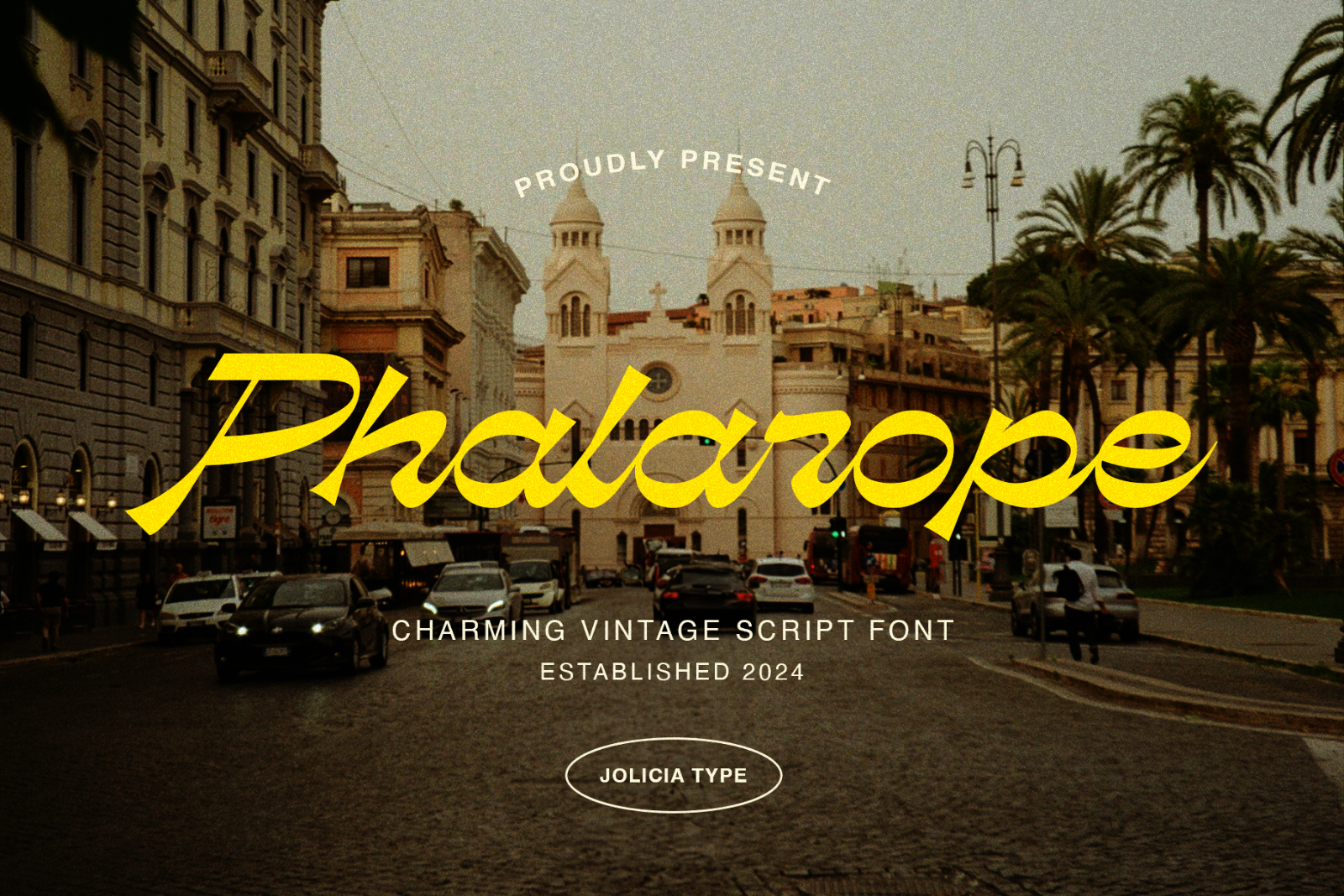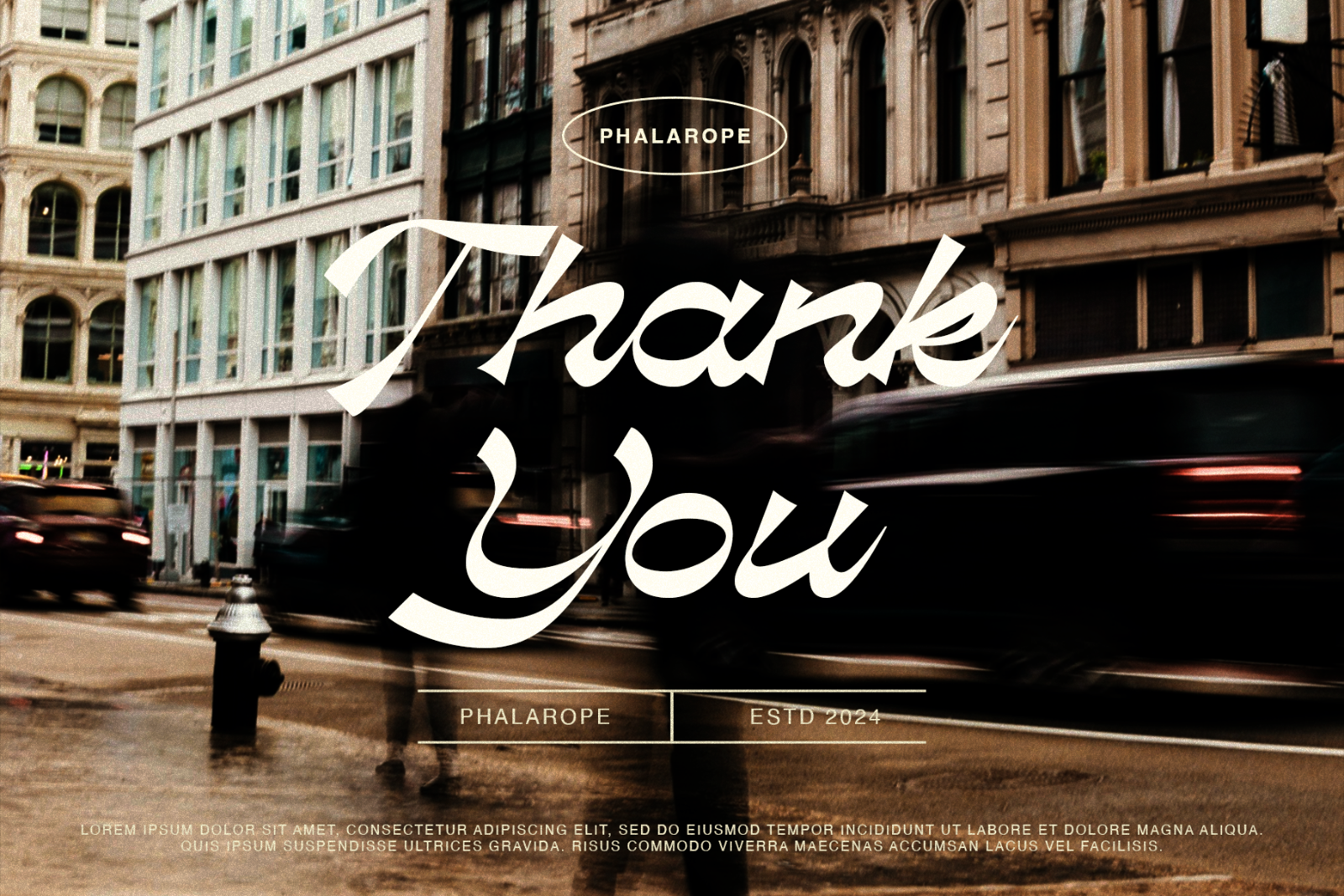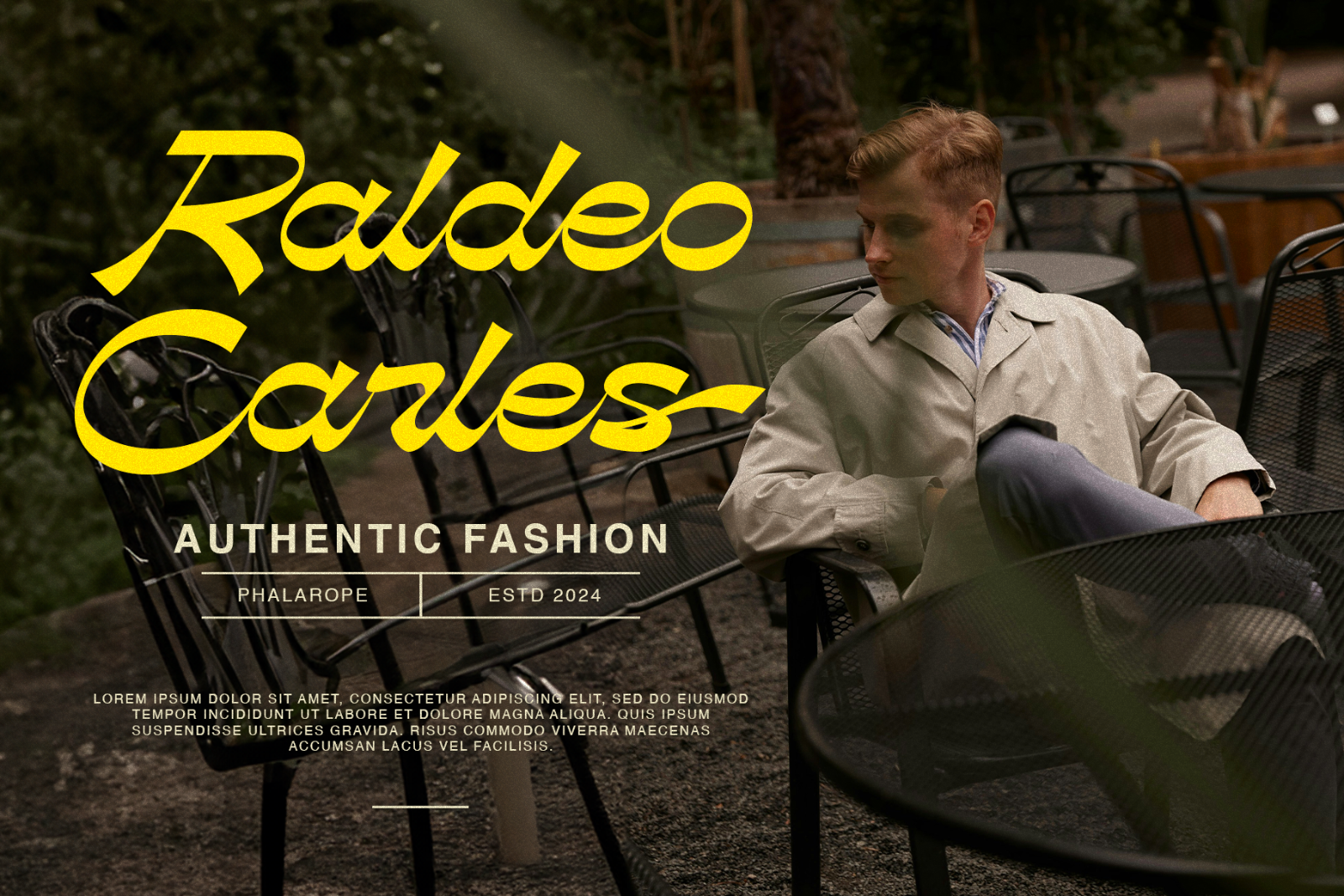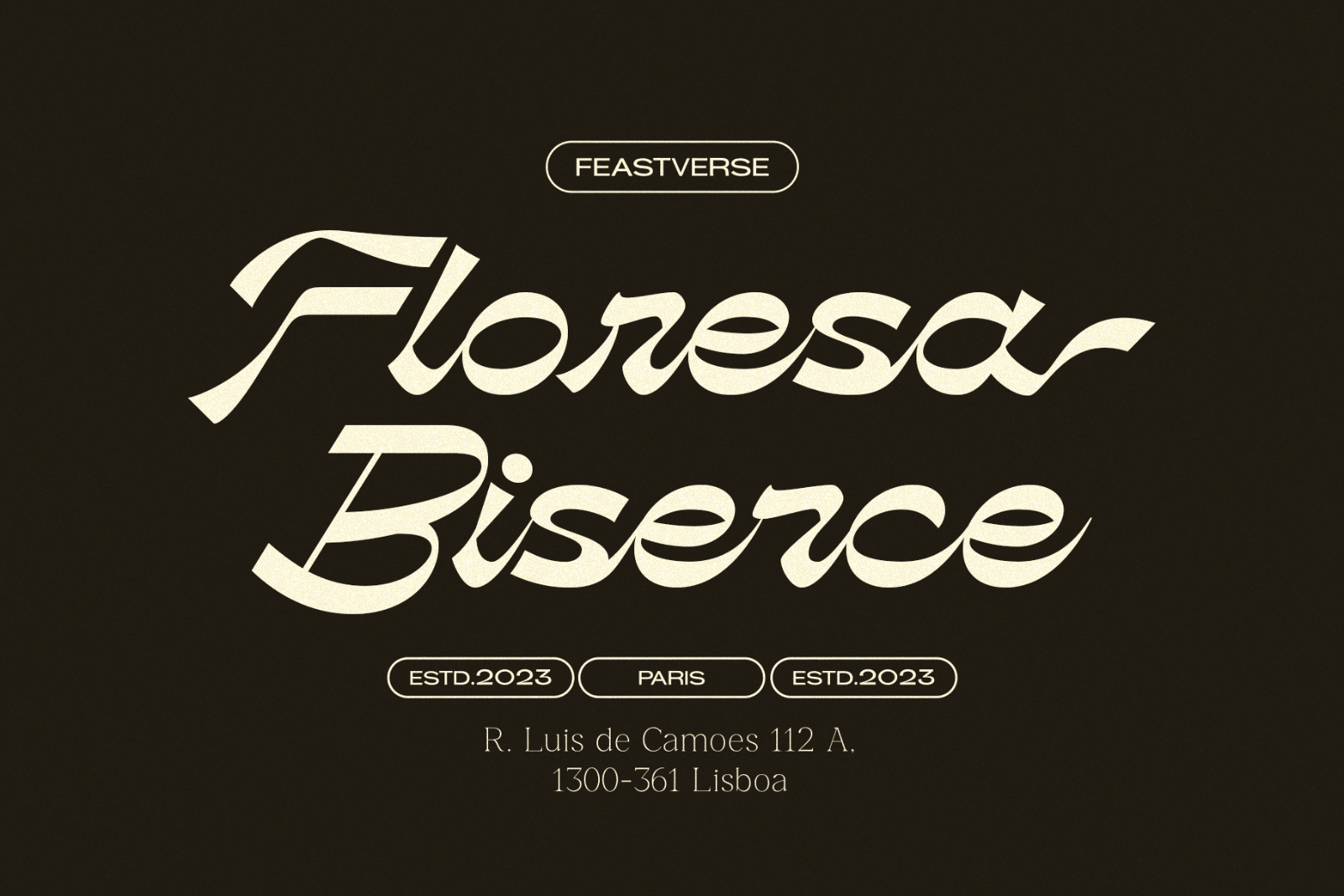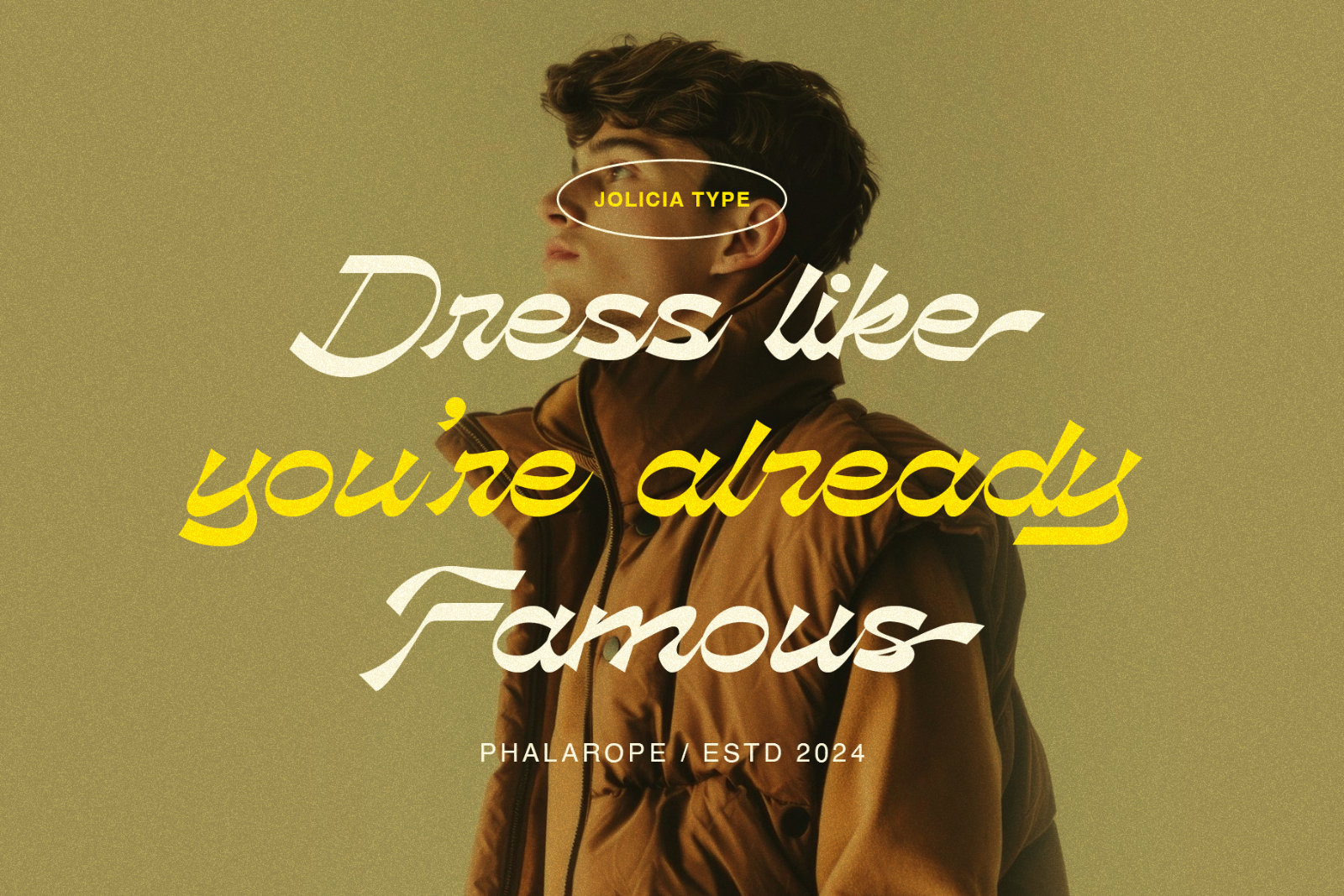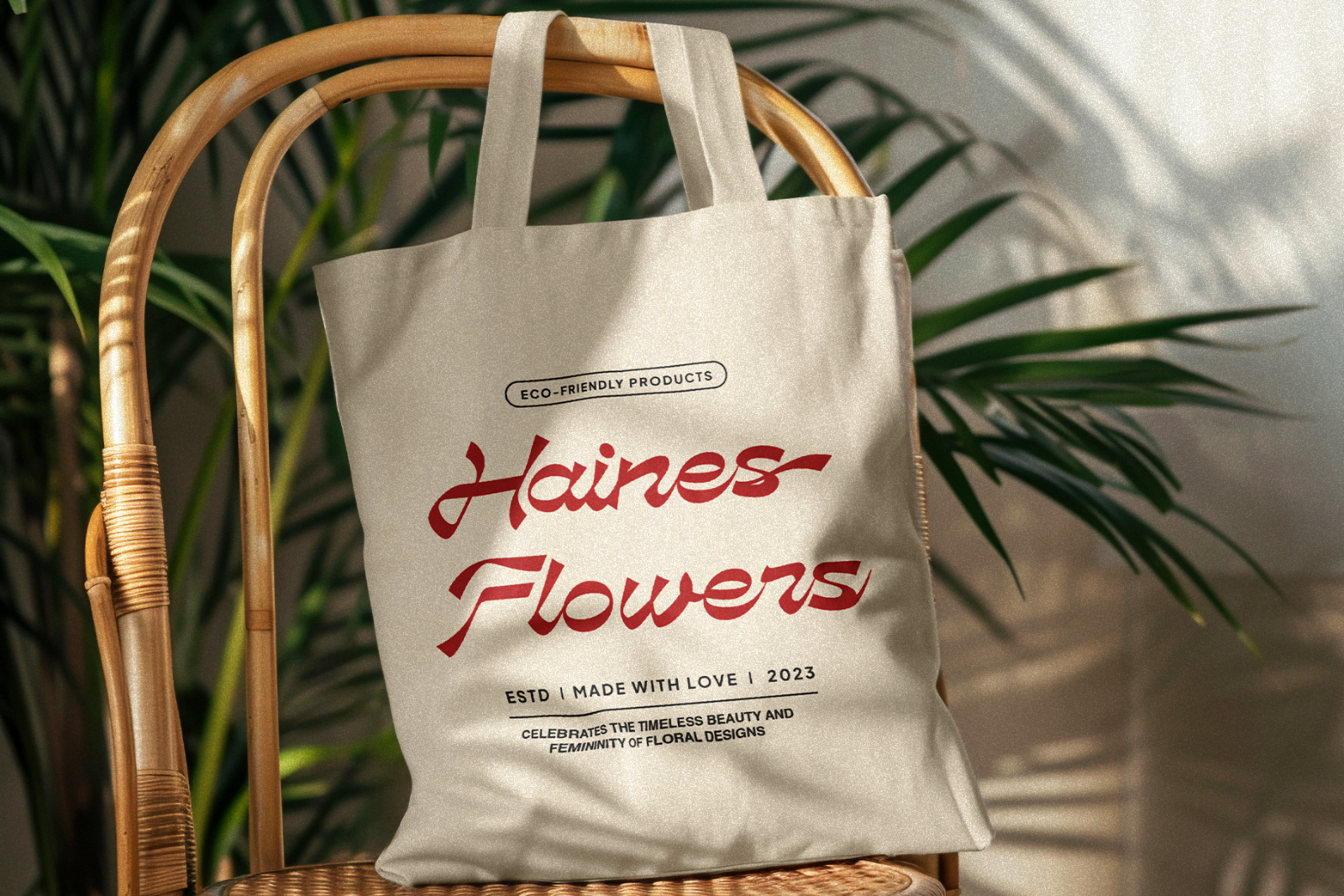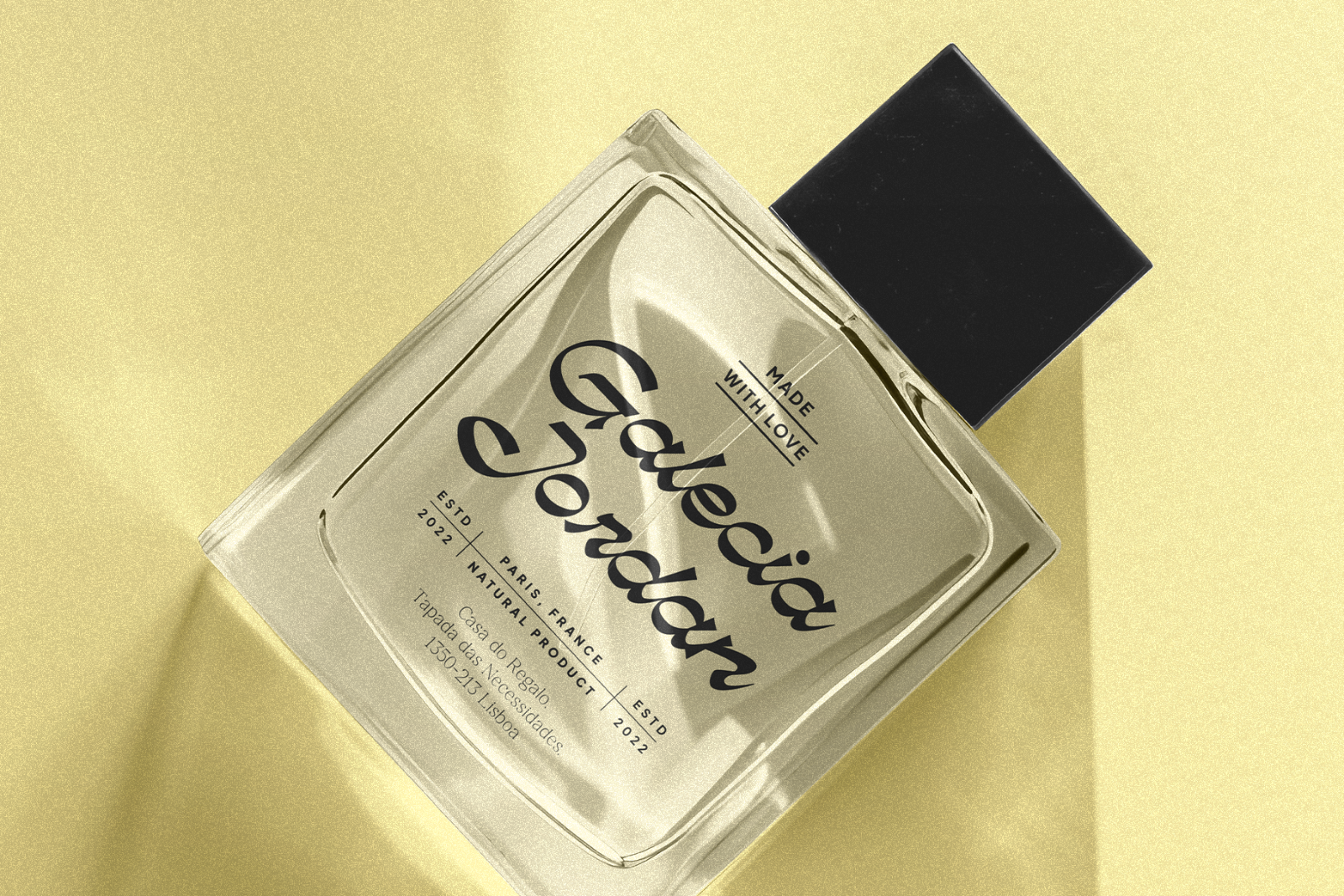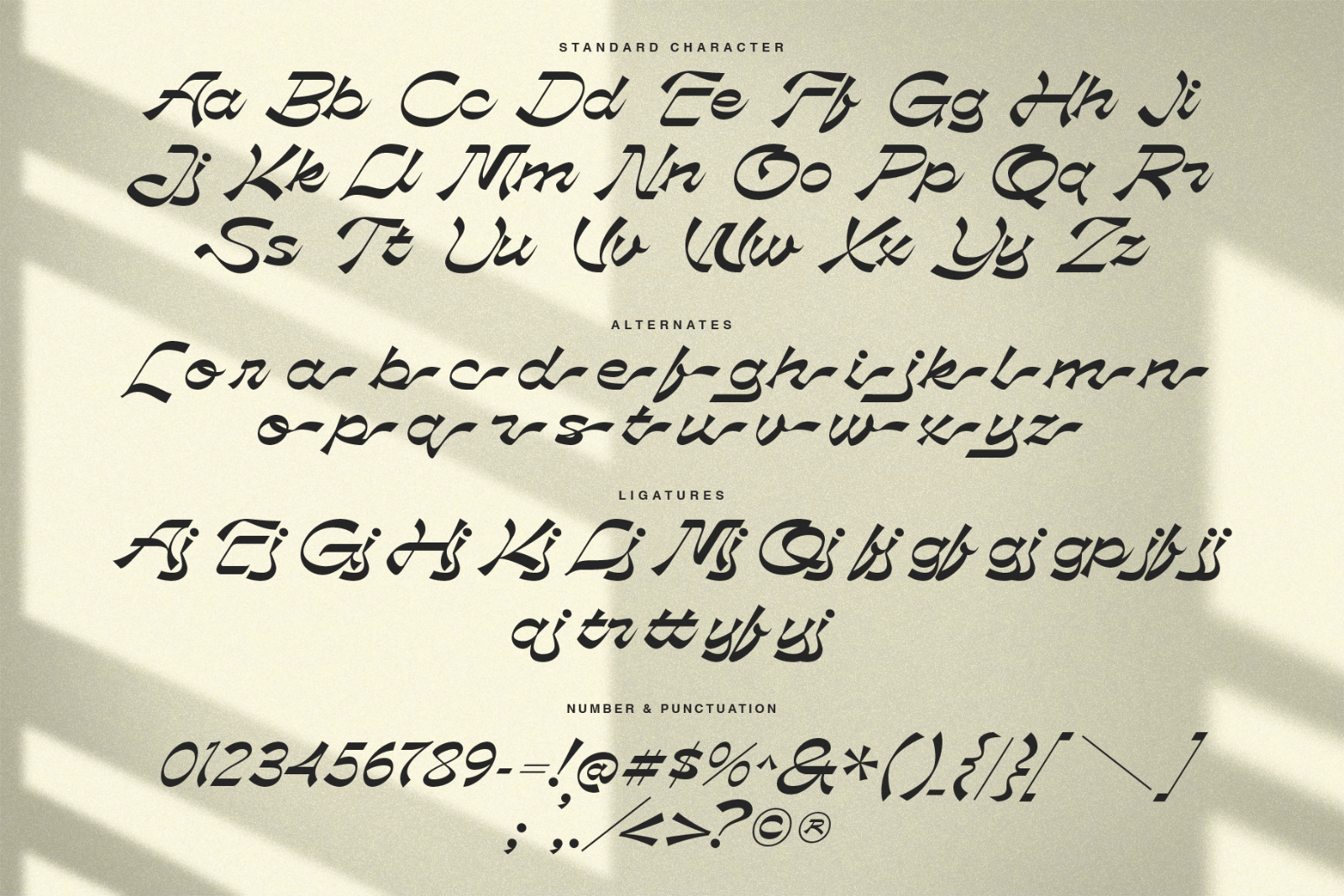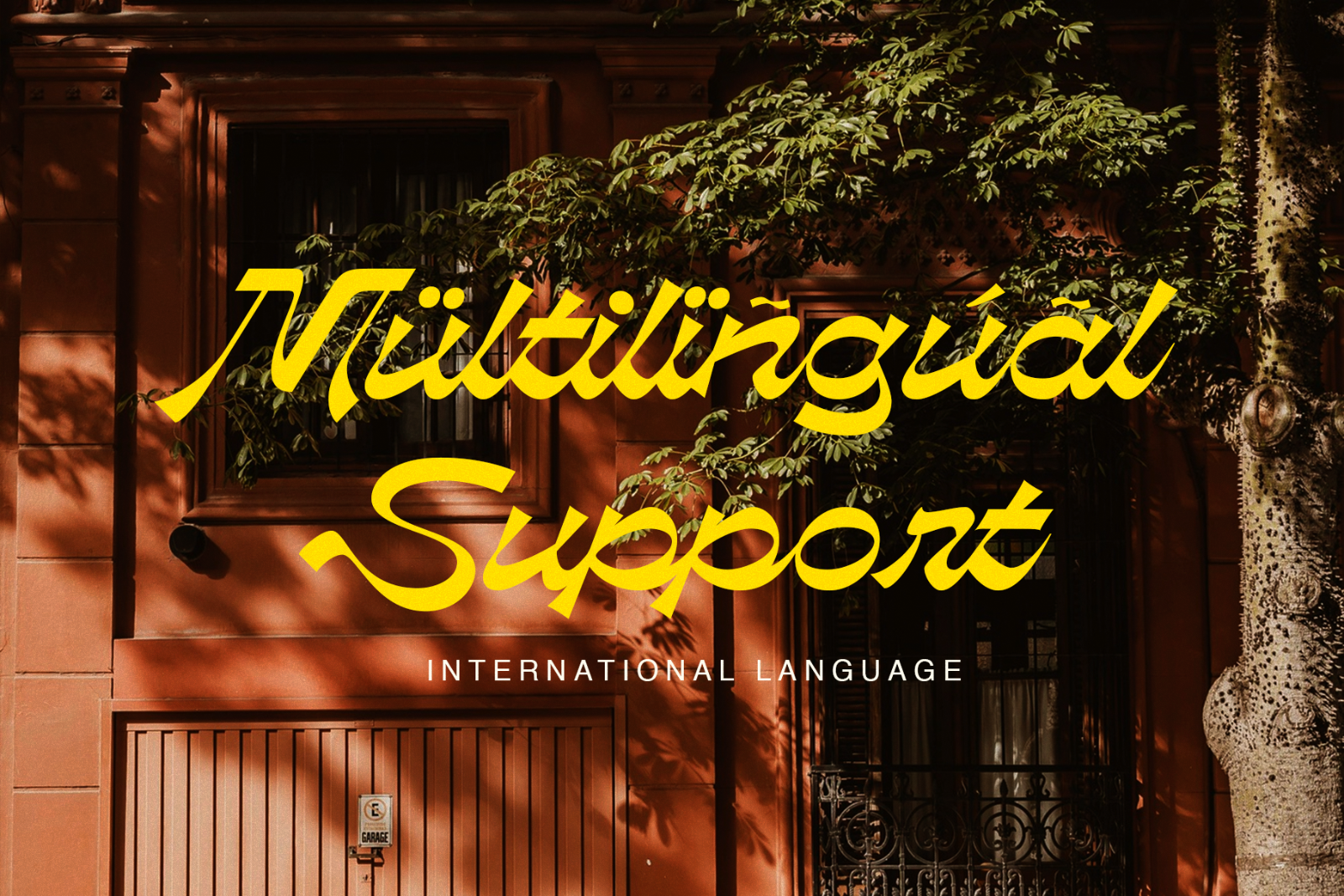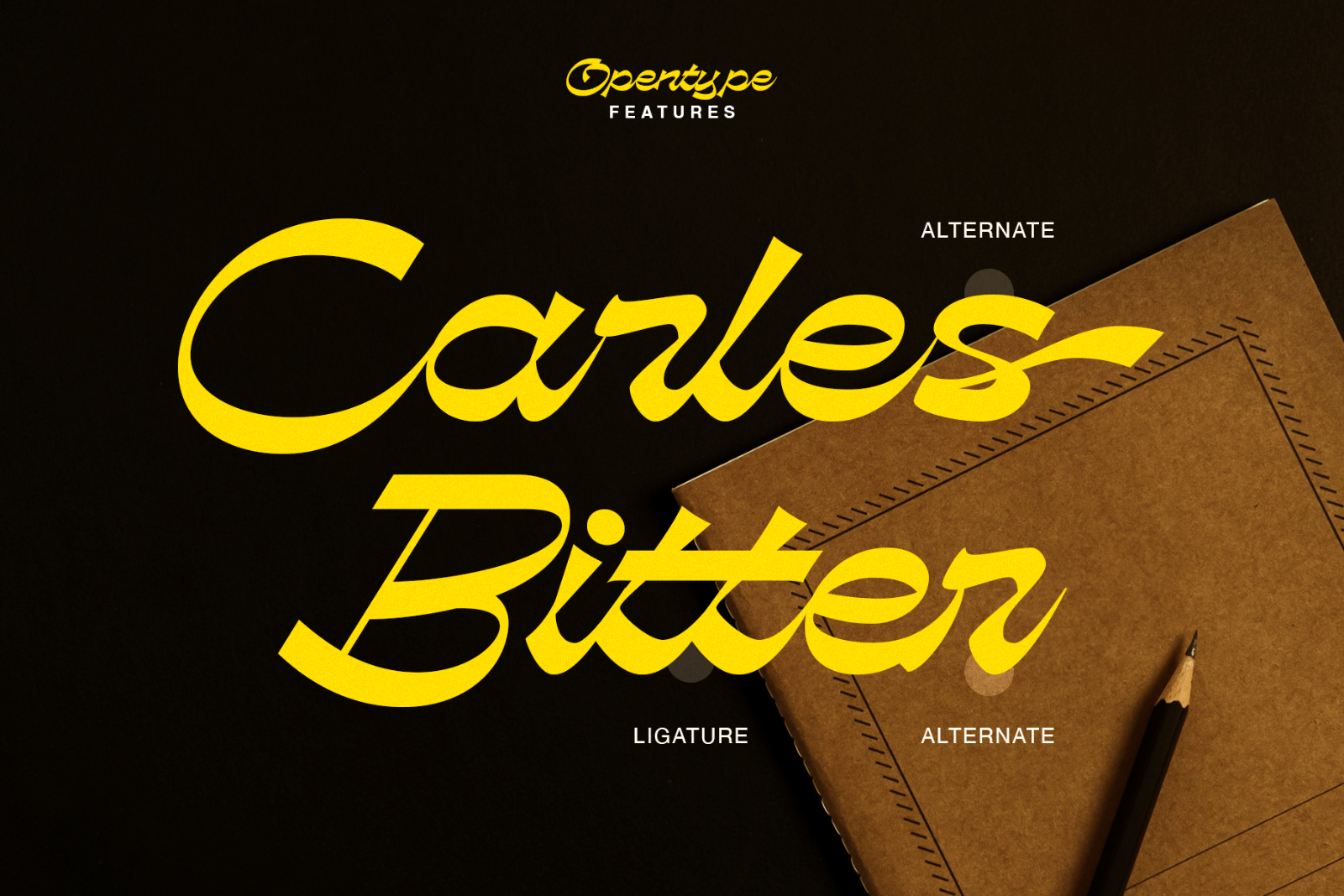
Phalarope is a reverse contrast script typeface that blends fluidity with bold, unexpected contrasts. The flowing strokes of script combine with reversed weight dynamics, creating a strikingly unique appearance. Ideal for elegant yet unconventional branding, headlines, and creative projects, “Phalarope” offers a fresh take on script fonts, pairing graceful curves with bold contrasts. Its daring design balances both tradition and modernity, making it a captivating choice for those seeking a standout visual impact.